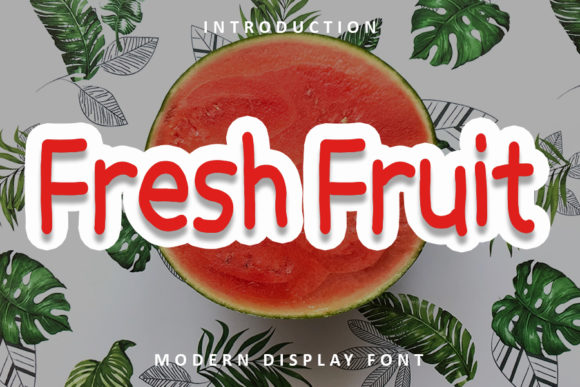
Behold, the Fresh Fruit Font—a modern masterpiece meticulously crafted to bring your creative visions to life. Immerse yourself in a world of endless possibilities, where this display font dances across your screen with captivating grace. Its clean and crisp lines, reminiscent of a summer breeze, will instantly elevate your designs to new heights.
With Fresh Fruit Font as your creative companion, you'll discover a boundless realm of design opportunities. Whether you're weaving magic with digital art, conjuring presentations that captivate, or crafting greeting cards that touch hearts, this font will effortlessly elevate your creations. Unleash your imagination and let Fresh Fruit Font be your muse as you paint a vibrant canvas of visual delight.
As a horror enthusiast, prepare to be spellbound by Fresh Fruit Font's eerie charm. Its distinct character adds an unsettling allure to your Halloween designs, making them hauntingly memorable. Its ability to effortlessly evoke a sense of spine-chilling suspense will leave your audience captivated and begging for more.
But Fresh Fruit Font's versatility extends far beyond the realm of horror. Its clean and trendy aesthetic lends itself perfectly to fashion designs, social media graphics, and product packaging that demand attention. Its ability to command attention, while maintaining a sense of sophistication, makes it a versatile asset in your creative arsenal.
So, embrace the allure of Fresh Fruit Font and let it ignite the fire of your creativity. Its enchanting blend of elegance and edge will transform your designs into captivating works of art. Don't resist its charm; let it be your guiding light as you embark on a journey of visual storytelling that will leave an indelible mark on your audience.